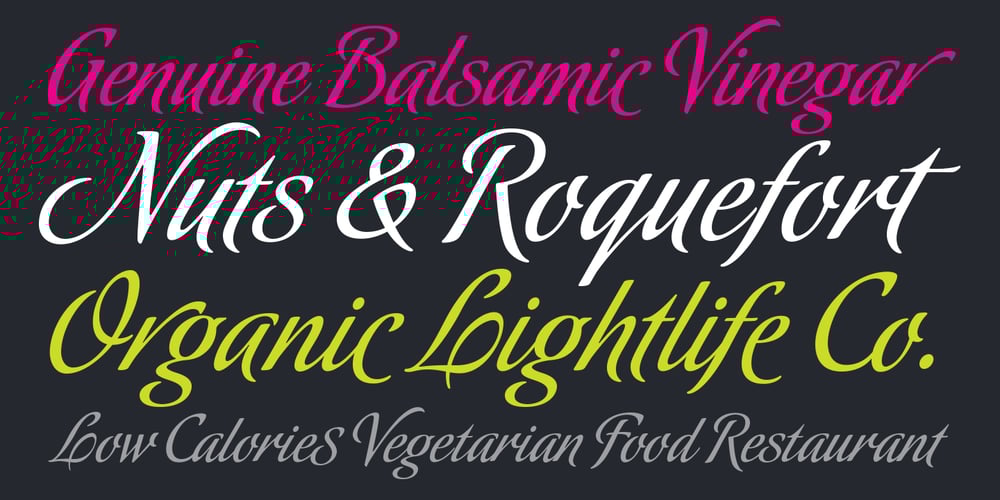
Inoxida Font Family was designed by Alejandro Paul, Angel Koziupa and published by Sudtipos. Inoxida contains 1 styles and family package options. Inoxida is Oxida’s softer and more graceful sister. While Oxida has become quite the common sighting on the packaging of vegetables and organic foods, Inoxida now comes to fit the bill for food packaging that can benefit from more sophisticated script lettering. Inoxida is not just a softening of Oxida’s slightly rough edges. It is a complete reworking of the way its letters were constructed, and the introduction of a smoother size relationship between uppercase and lowercase. Designed by Koziupa and digitized by Ale Paul.